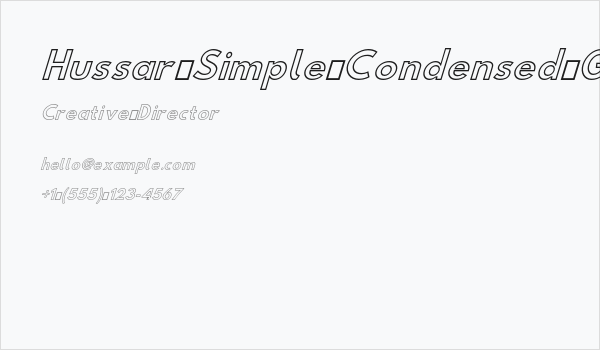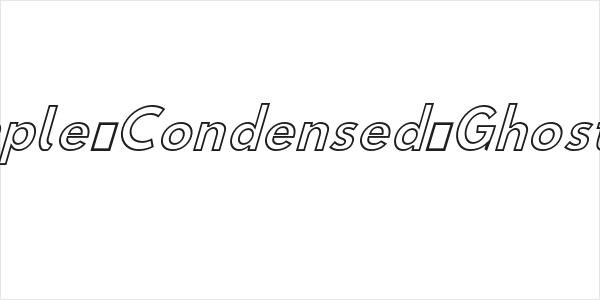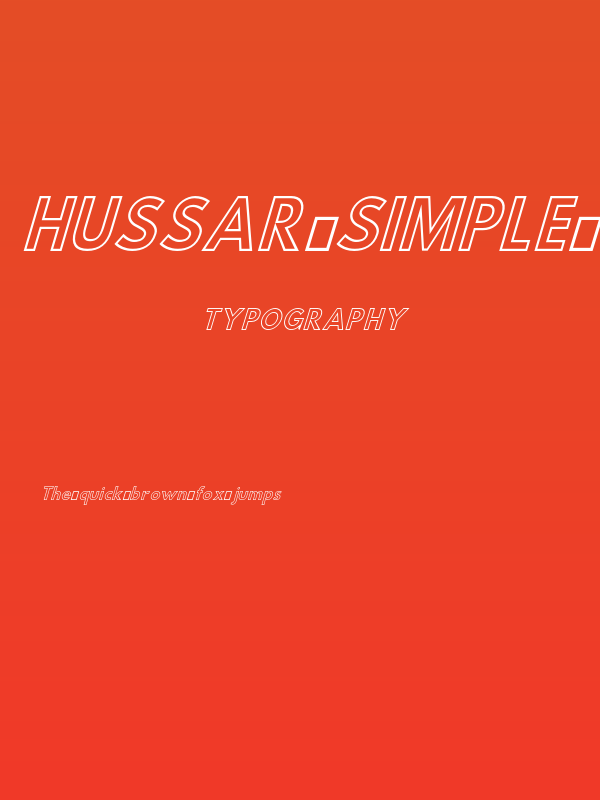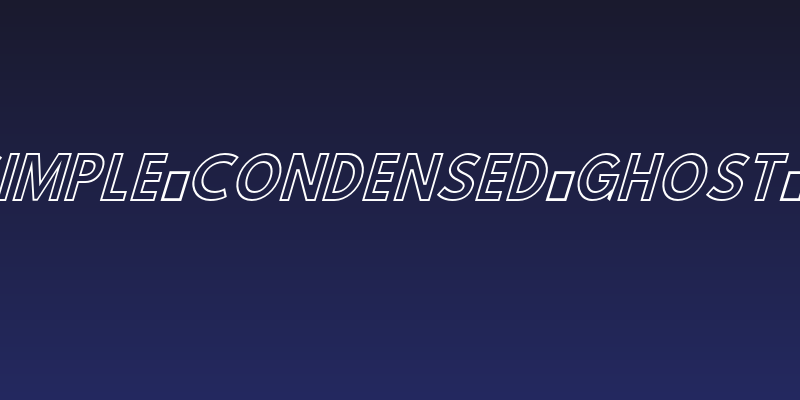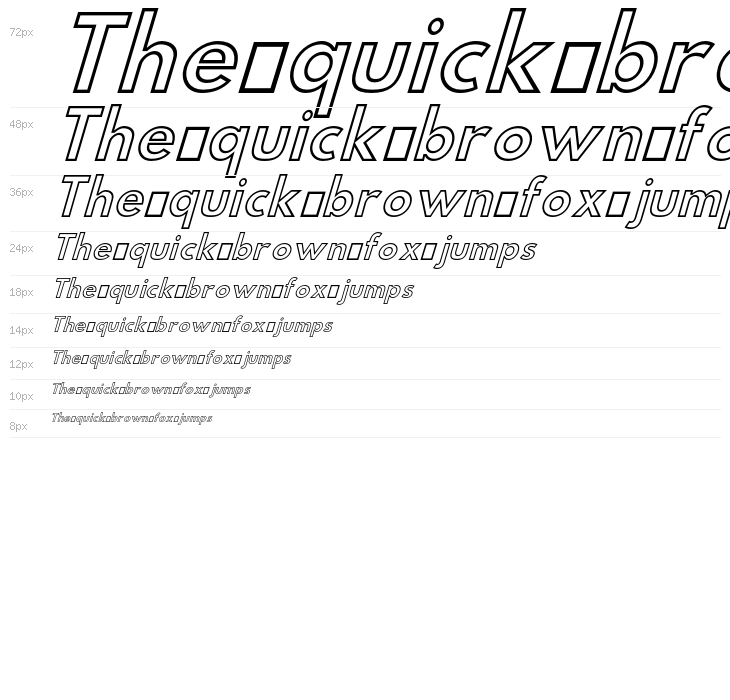
Hussar Simple Condensed Ghost Oblique 3 Font
Hussar Simple Condensed Ghost Oblique 3 Description
This font features a modern and sleek design with a condensed and oblique style. The characters are outlined, giving them a ghostly appearance, which adds a unique flair to the overall aesthetic. The uppercase and lowercase letters maintain a consistent slant, enhancing the oblique nature of the font. The numerals and special characters are designed to match the letterforms, ensuring a cohesive look. The font's thin lines and open spaces contribute to its airy and light feel, making it suitable for projects that require a contemporary and stylish touch.